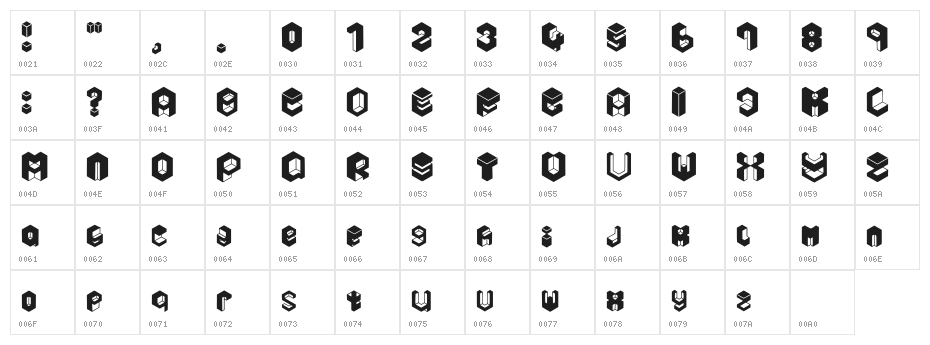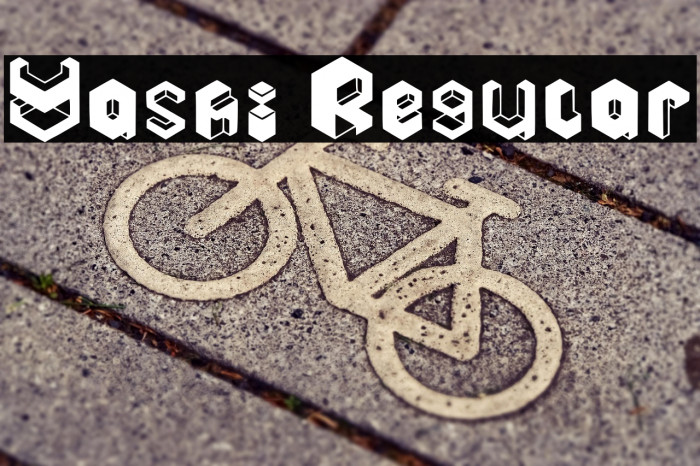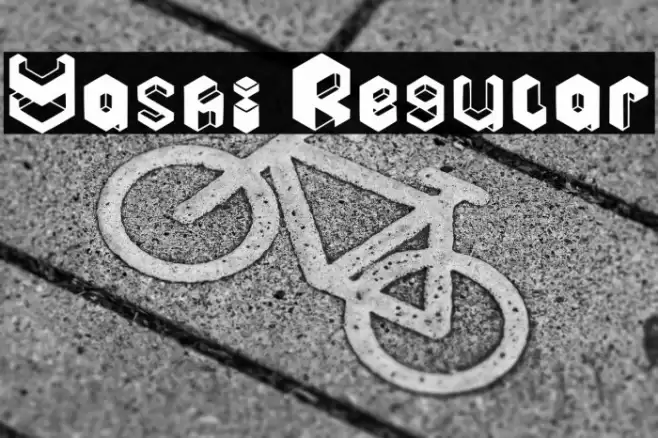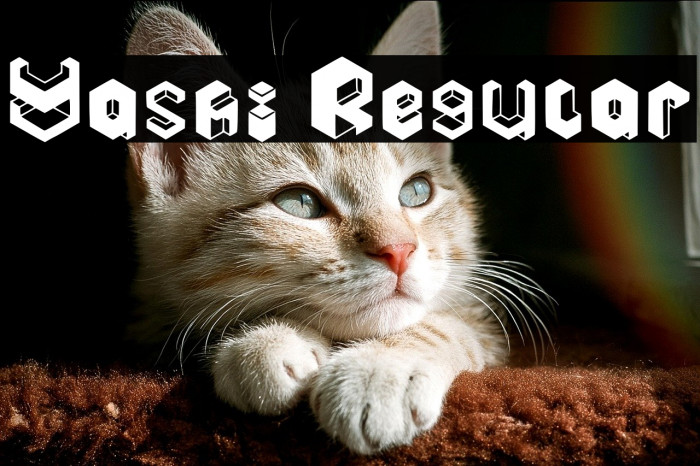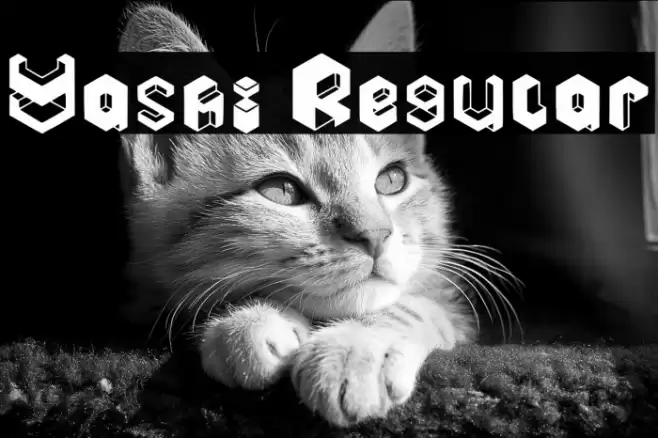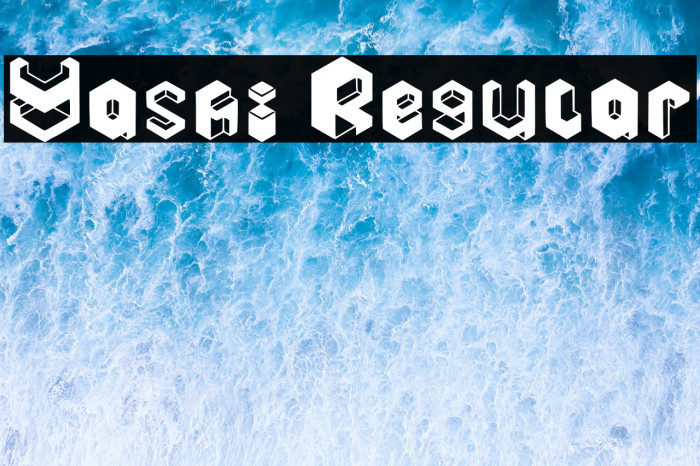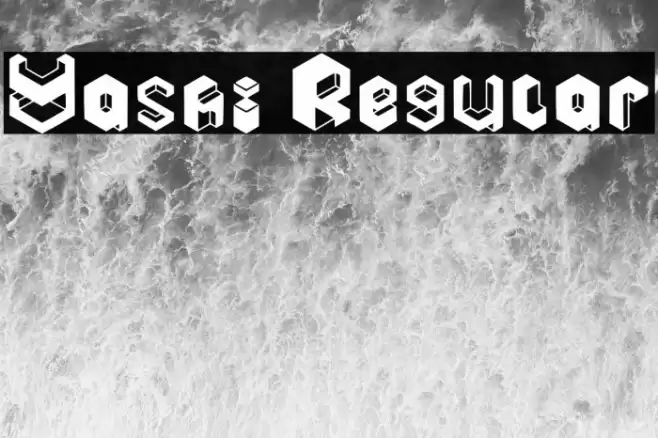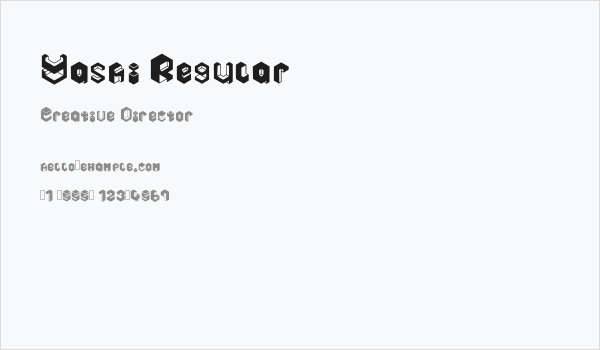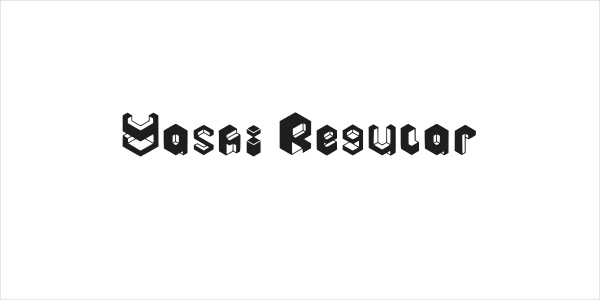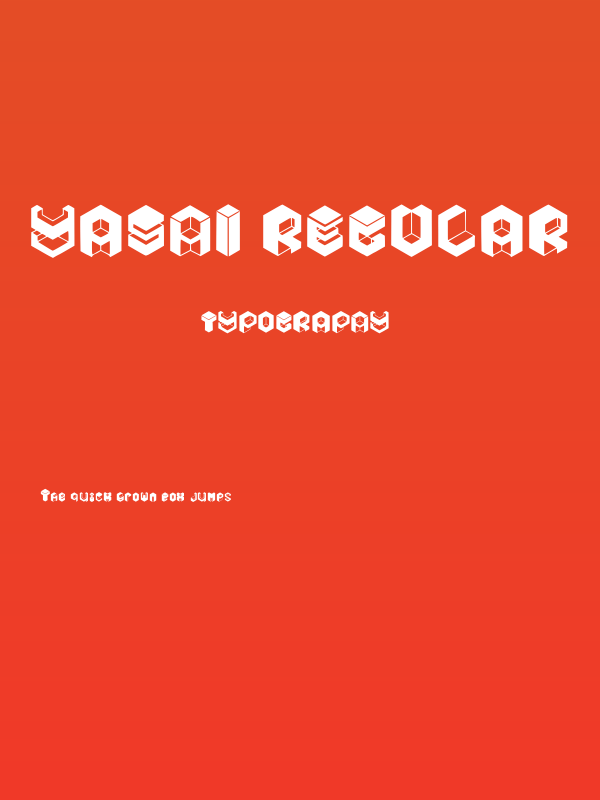
Yashi Regular Font
Yashi Regular Description
This font features a bold, three-dimensional geometric design that gives each character a block-like appearance. The letters are constructed with thick, angular lines that create a sense of depth and solidity. The style is highly decorative, with a modern and edgy feel, making it stand out in any design. The uppercase and lowercase letters maintain a consistent style, while the numbers and special characters complement the overall aesthetic. The font's unique structure makes it ideal for projects that require a strong visual impact.
| Overall Style | Modern, Decorative |
| Use Case | Logos, Posters, Headlines |
| Proposed Projects | Ideal for posters, logos, video game graphics, and any project needing a striking visual element. |